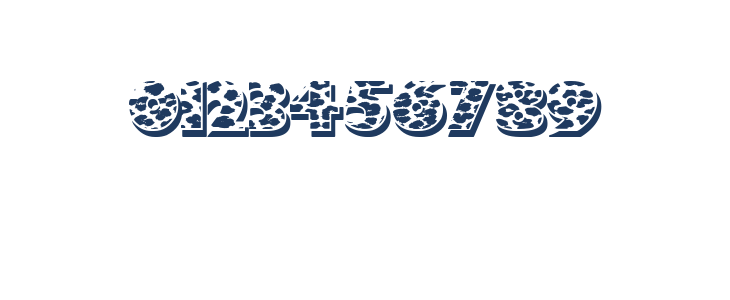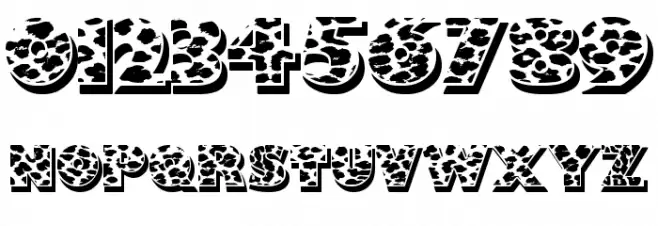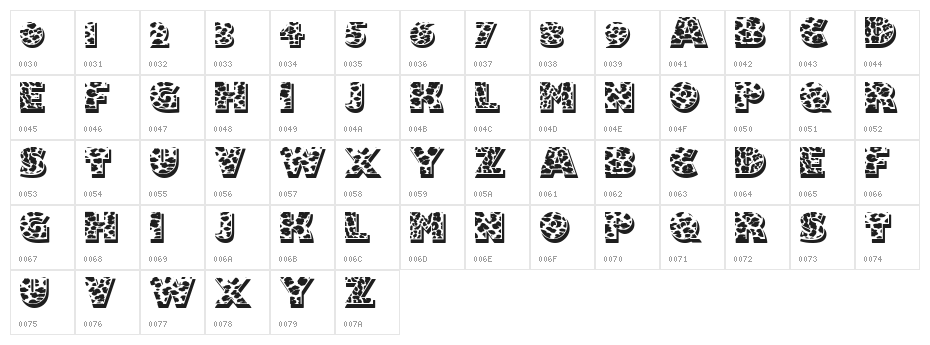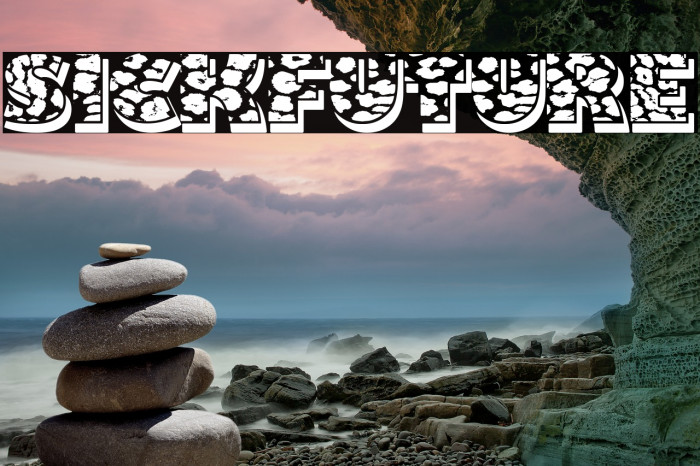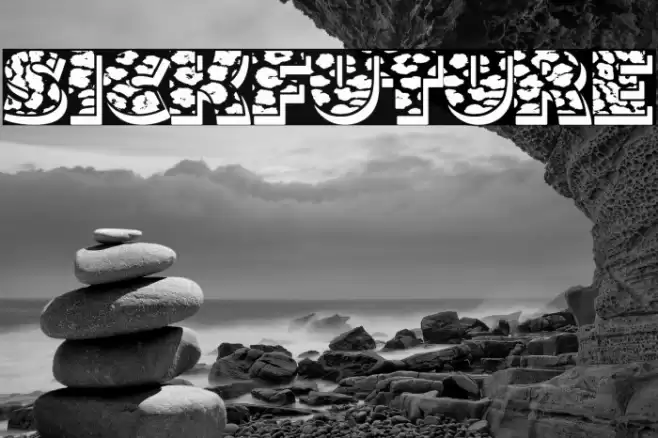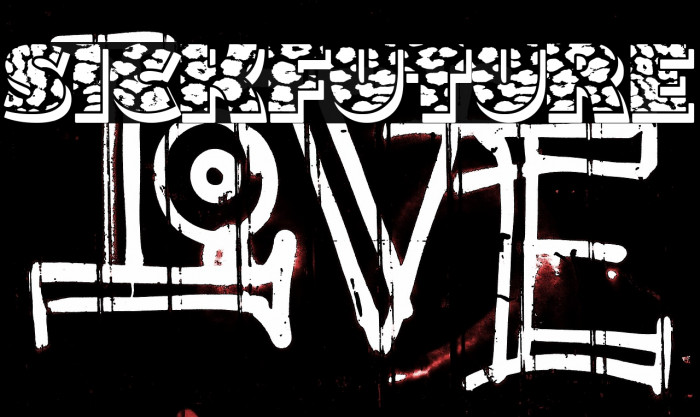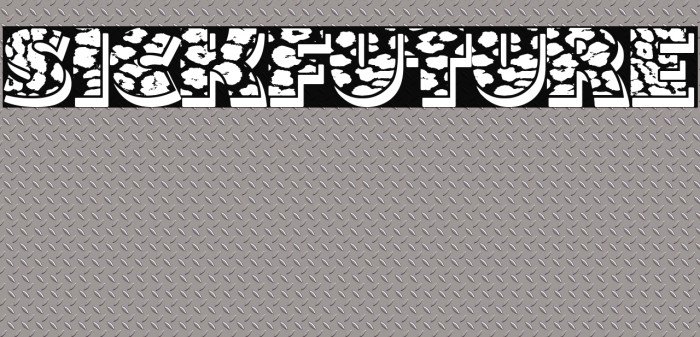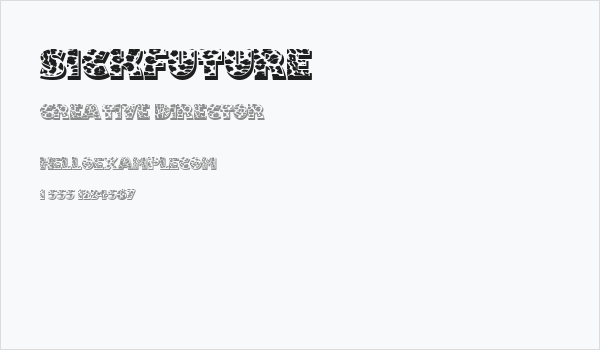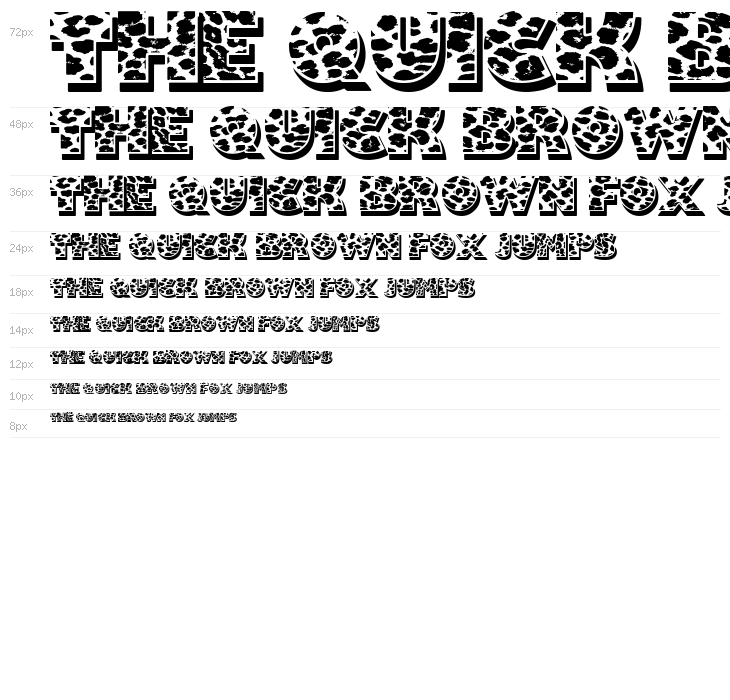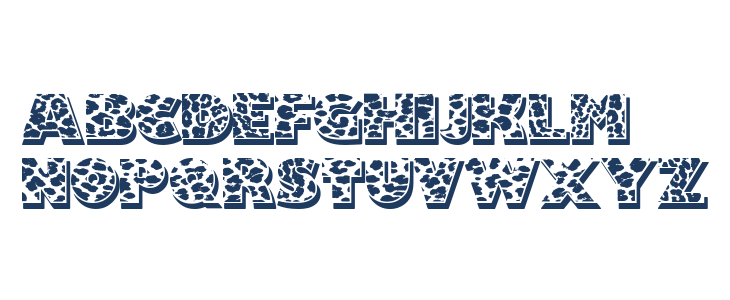
sickfuture Font
sickfuture Description
This font features a bold, decorative style with a unique pattern resembling animal prints within each character. The letters are uppercase and have a strong, impactful presence, making them ideal for attention-grabbing designs. The characters are outlined with a thick black border that enhances their visibility and adds a layer of depth. The playful and wild aesthetic of the font makes it suitable for creative and unconventional projects. The spacing between characters is normal, ensuring readability despite the intricate design within each letter.
| Proposed Projects | Ideal for posters, event flyers, children's book covers, and branding for adventurous or nature-themed products. |